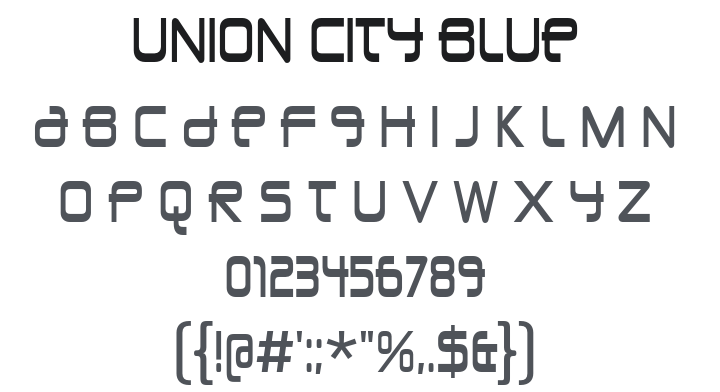
Union City Blue Font
About Union City Blue
Union City Blue is a high-tech, robotic display typeface with unconventional flowing curves and strange letterforms that radiate an otherworldly scientific authority — described by its creator as the font they'll use on spaceship speedometers in the year one zillion. Its alien, futuristic character feels genuinely from another era. Perfect for sci-fi interfaces, space exploration branding, futuristic game titles, tech posters, and any headline needing a voice of interstellar cool.